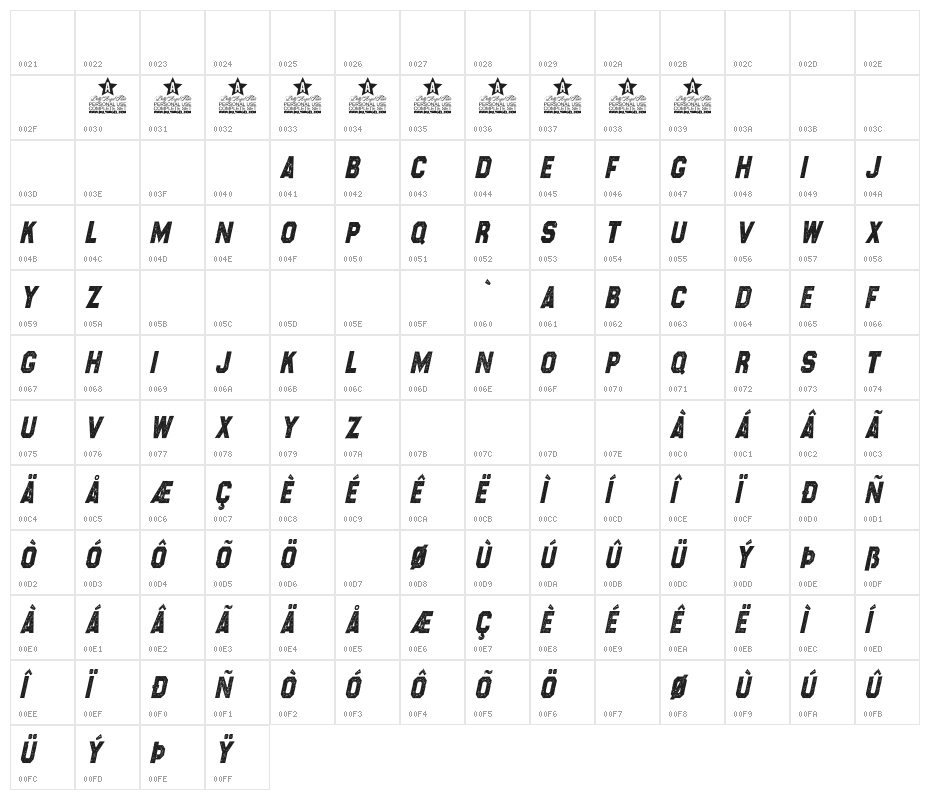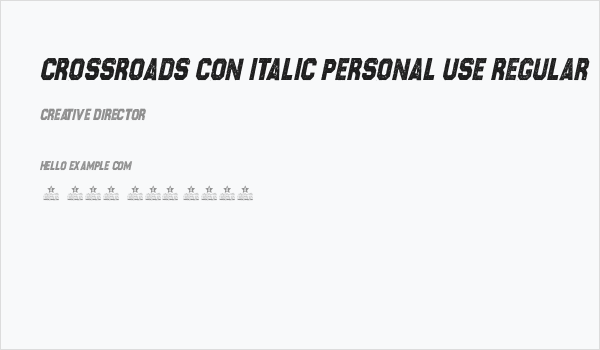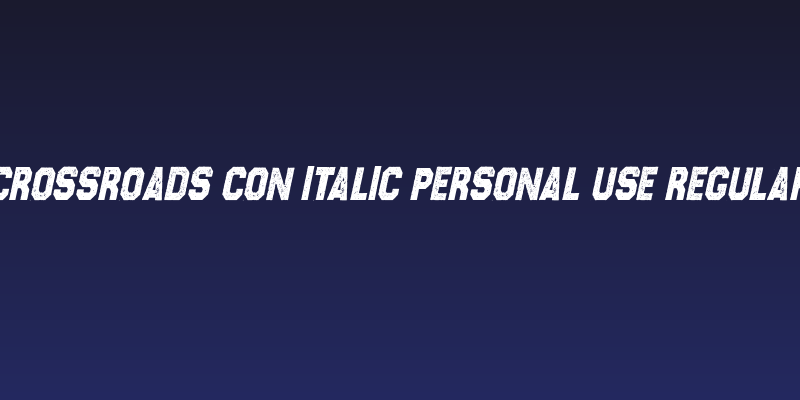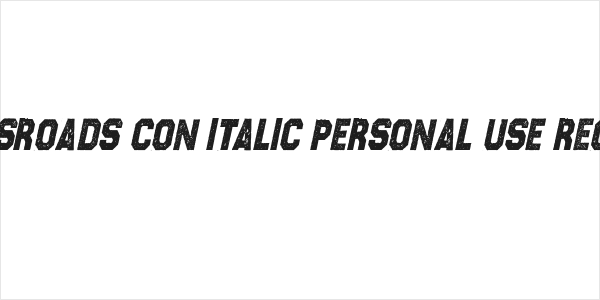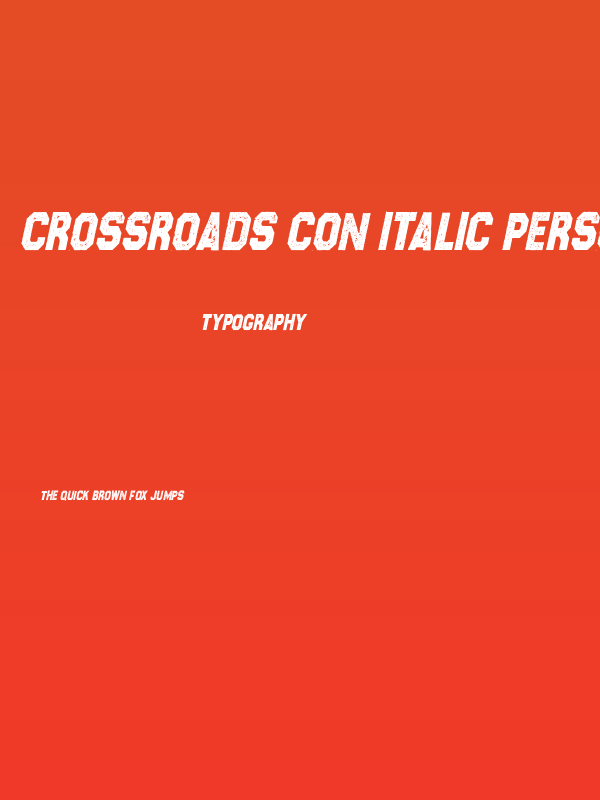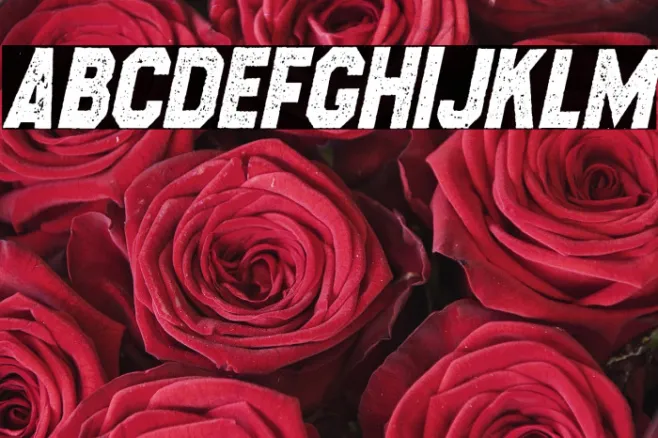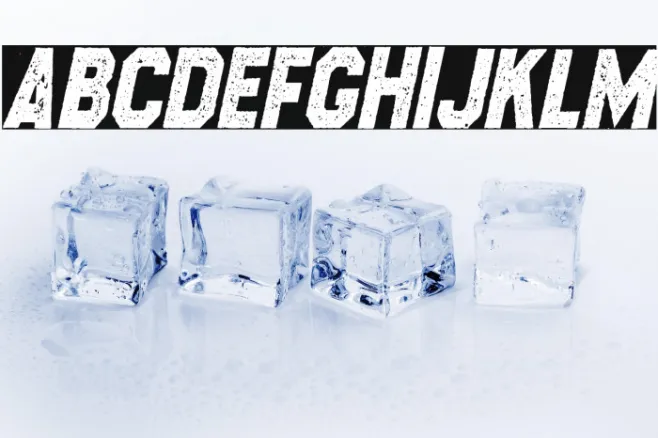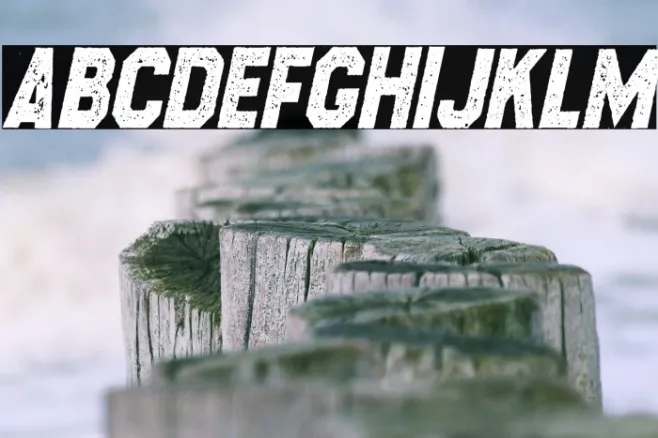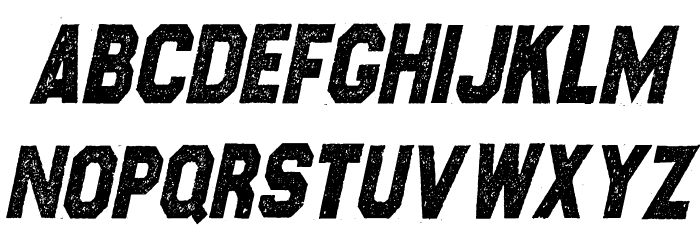
CROSSROADS CON ITALIC PERSONAL USE Regular Font
✎ Retro
| Kategorien | Retro |
| Gesamtstil | Vintage |
| Anwendungsfall | Logos, Headlines, Posters |
| Vorgeschlagene Projekte | Ideal for posters, logos, branding, and any design needing a vintage or industrial touch. |